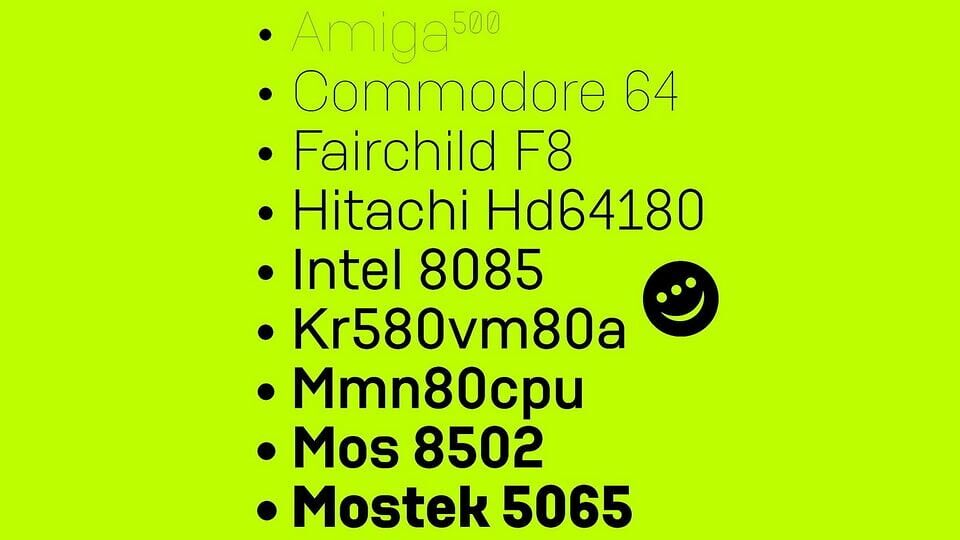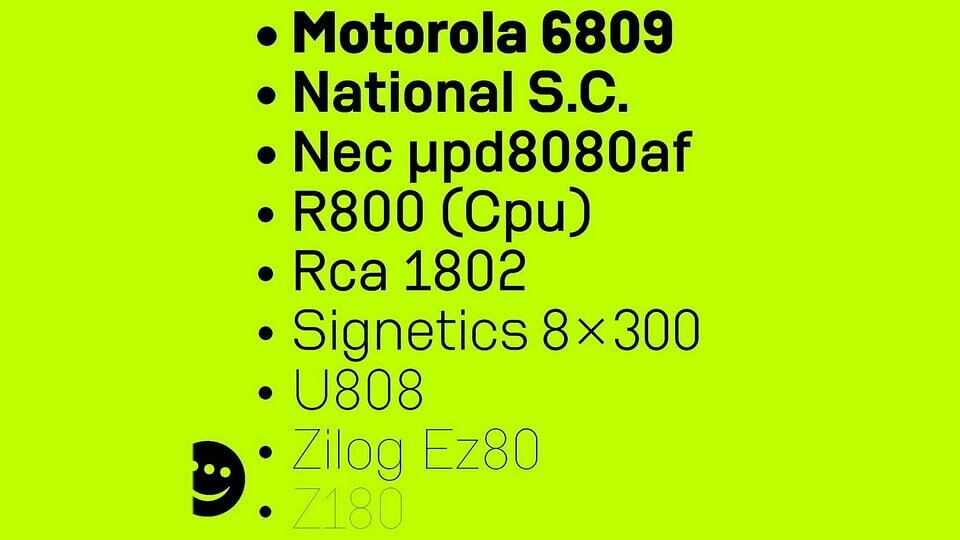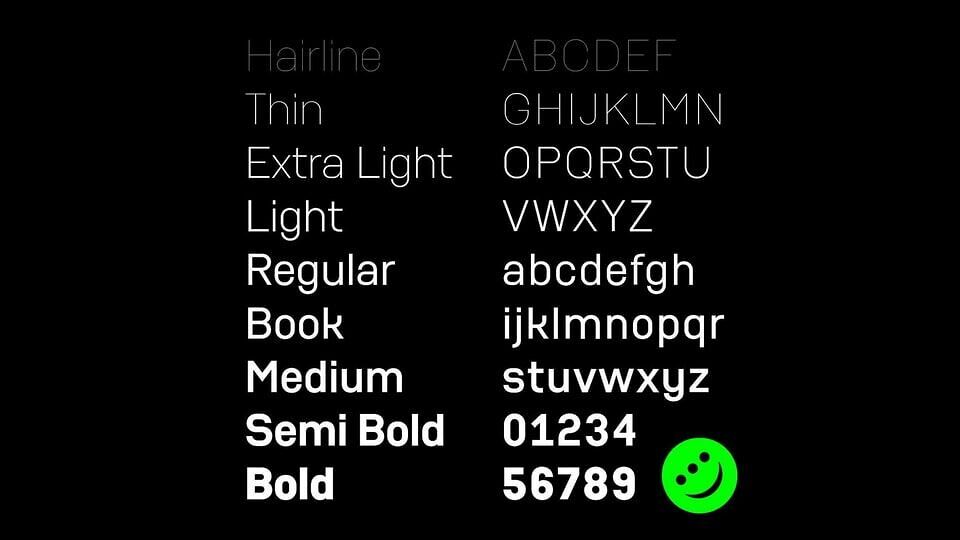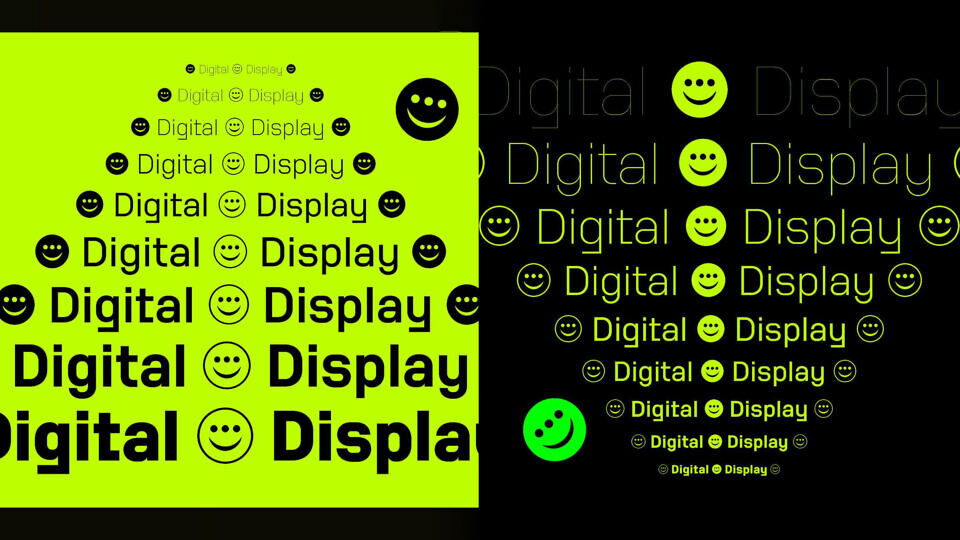
Diagraph mimics the rudimentary look of Computer Aided Design (C.A.D.) typefaces. During its creation, all the mathematically generated aberrations have been kept in the design to enhance its digital look.
The hybrid aesthetic issued from this mix is intentionally irregular to create a sans serif family of 9 weights with variability at hand.